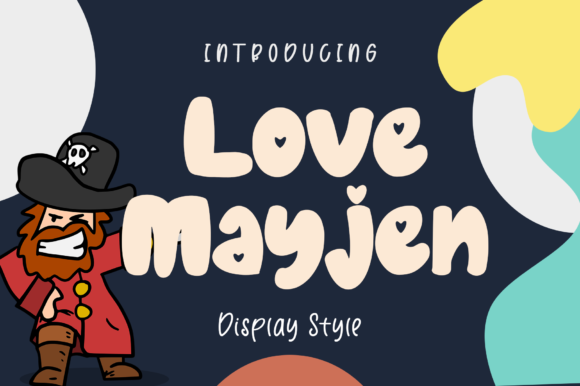
Journey into the world of Love Mayjen Font, an enchanting display font crafted by isolatype, a renowned font foundry. This captivating font exudes a charming and playful aura, making it the perfect choice for designers seeking to infuse their projects with a touch of whimsy and warmth.
Love Mayjen Font's casual style effortlessly blends elegance and fun, allowing it to seamlessly adapt to a myriad of design endeavors. Its soft curves and delicate strokes create a visual symphony, adding a captivating charm to logos, branding, wall art, and product designs. The font's versatility extends to social media posts, where its playful nature shines through, capturing the attention of audiences and leaving a lasting impression.
Discover the boundless creative possibilities that await with Love Mayjen Font. Embark on a typographic adventure, transforming children's books into enchanting tales, adding a touch of whimsy to branding initiatives, and turning walls into vibrant expressions of art. Unleash your imagination and let Love Mayjen Font guide you towards captivating designs that resonate with your audience, leaving them spellbound and eager for more.
Indulge in the delightful experience of using Love Mayjen Font, a font that speaks to the heart and captivates the senses. With its undeniable charm and versatility, Love Mayjen Font is the key to unlocking a world of creative possibilities, empowering you to craft designs that leave an indelible mark on your audience.